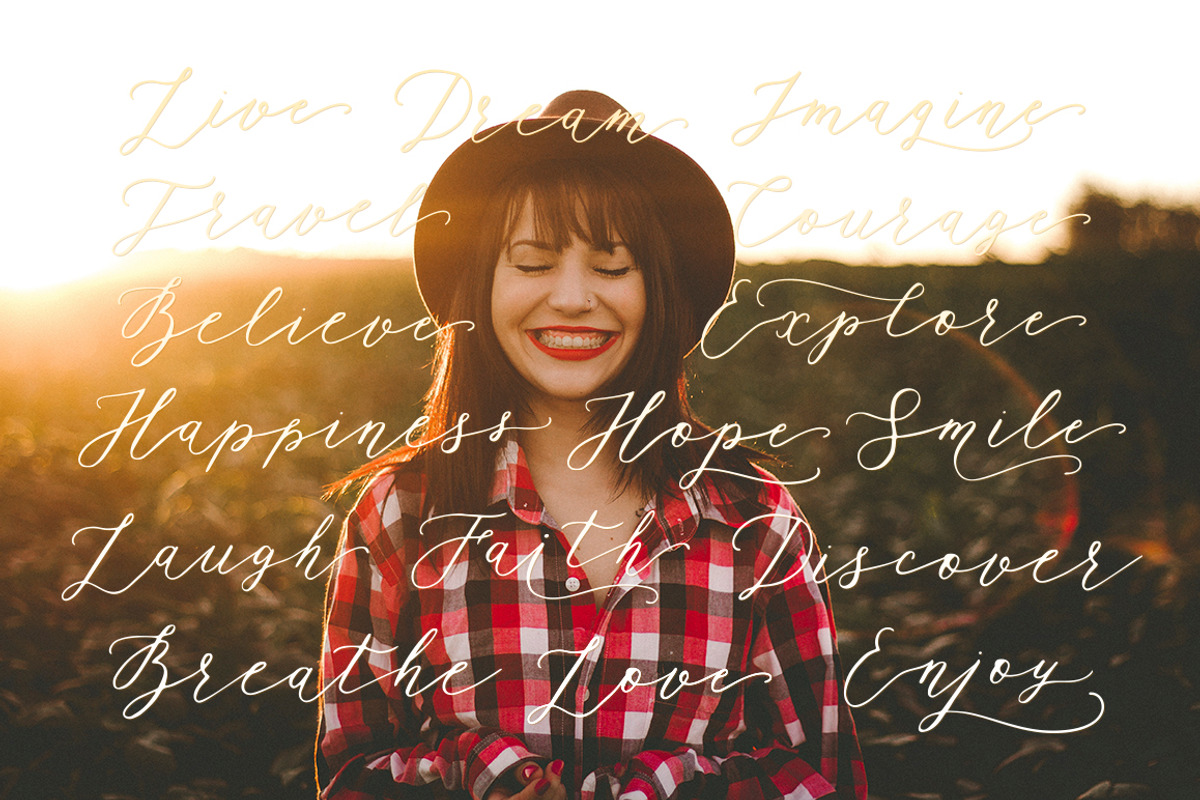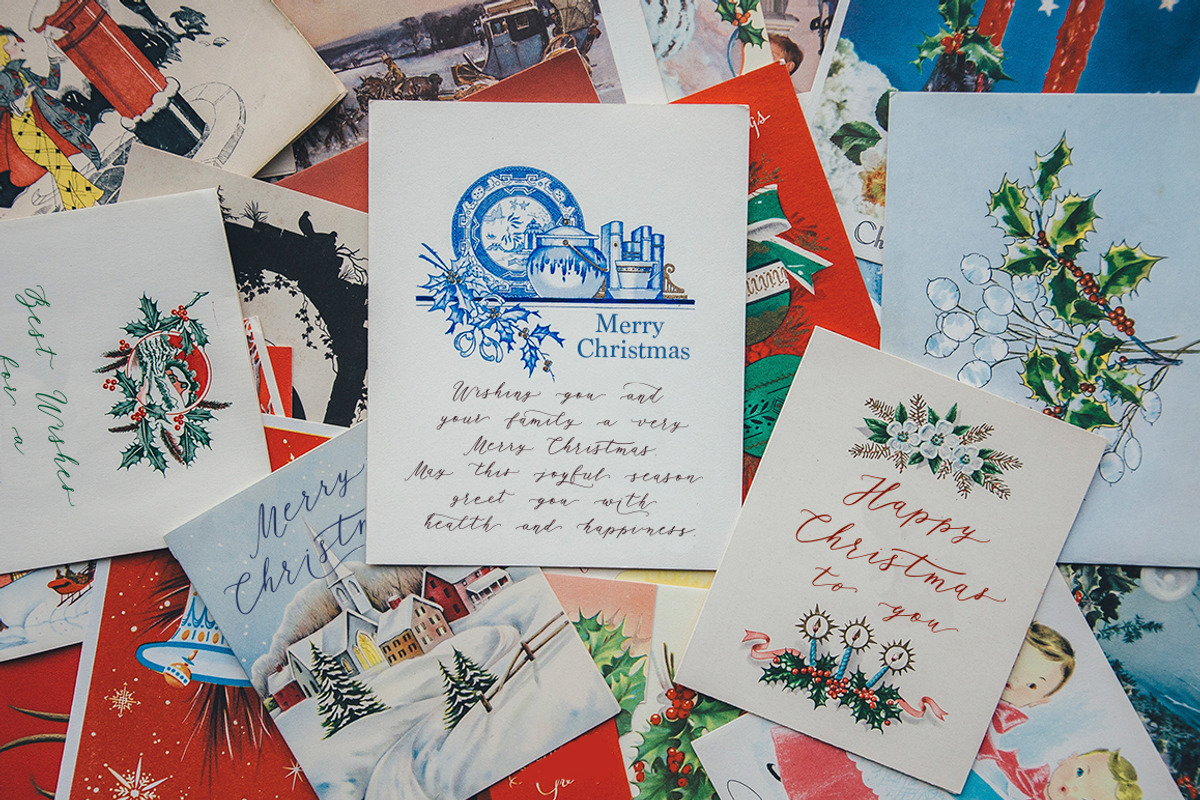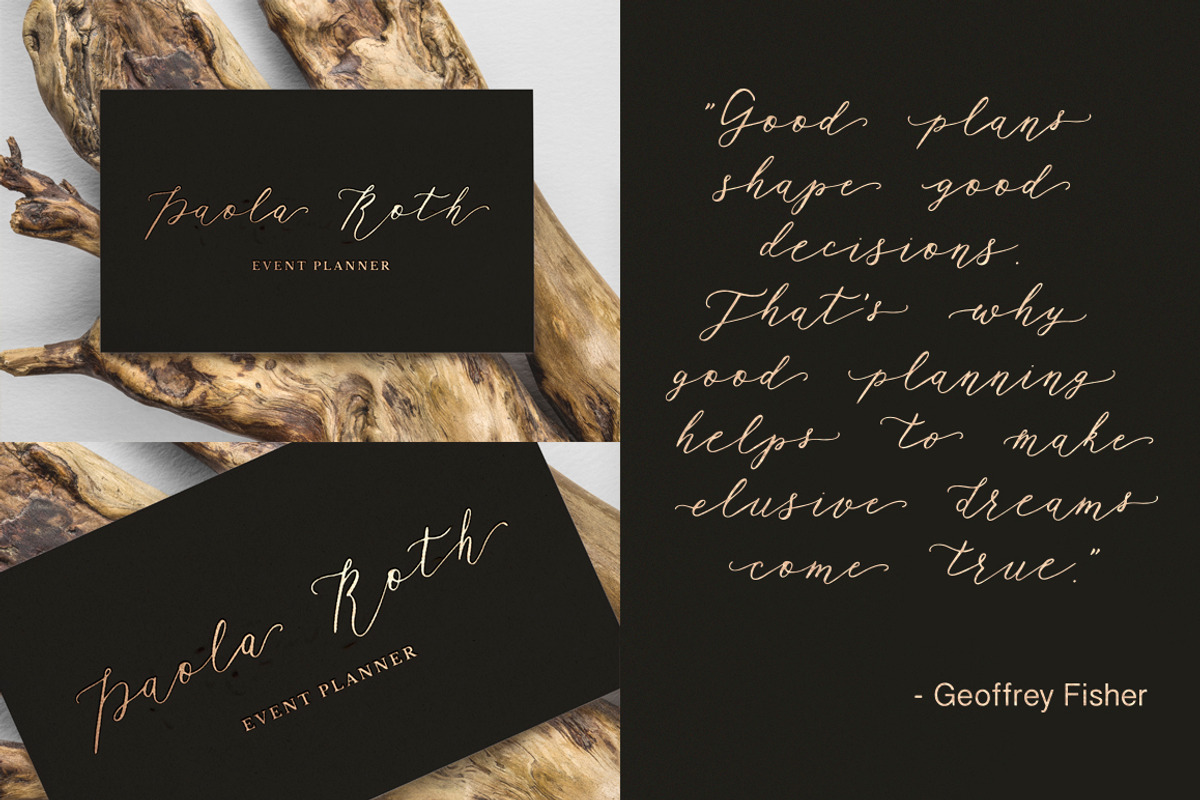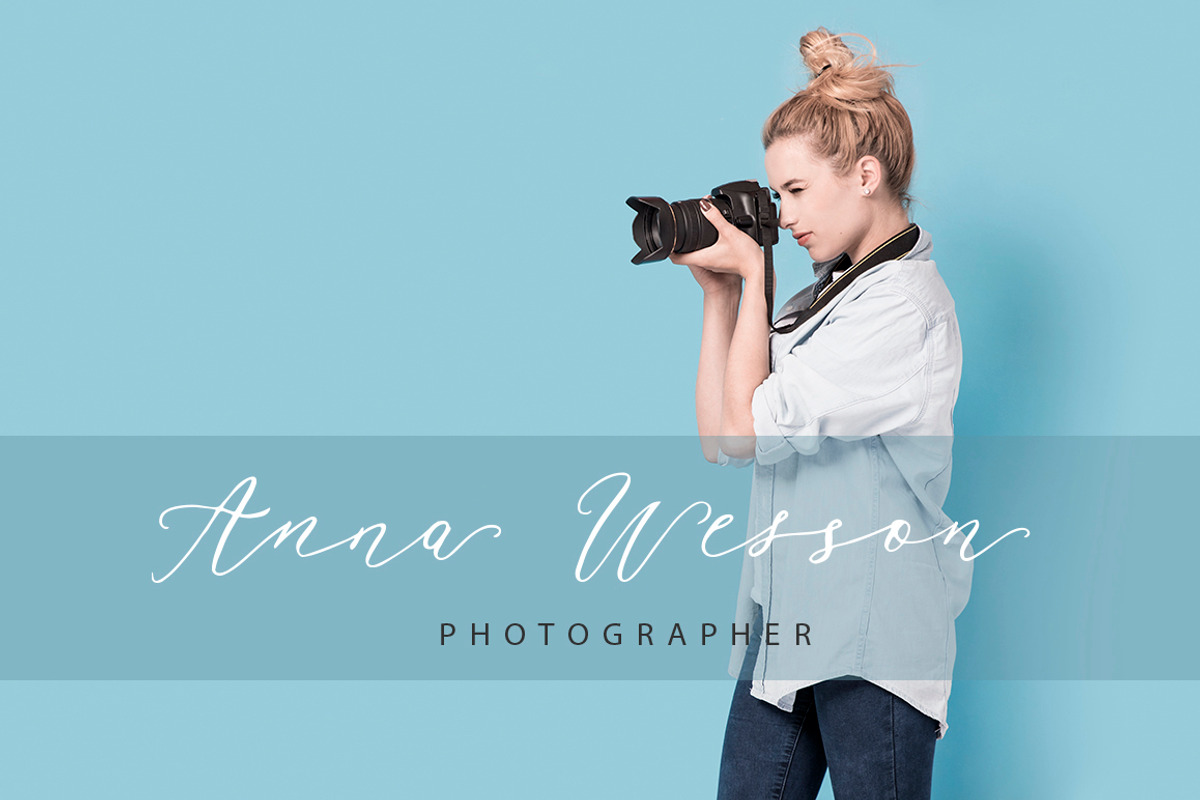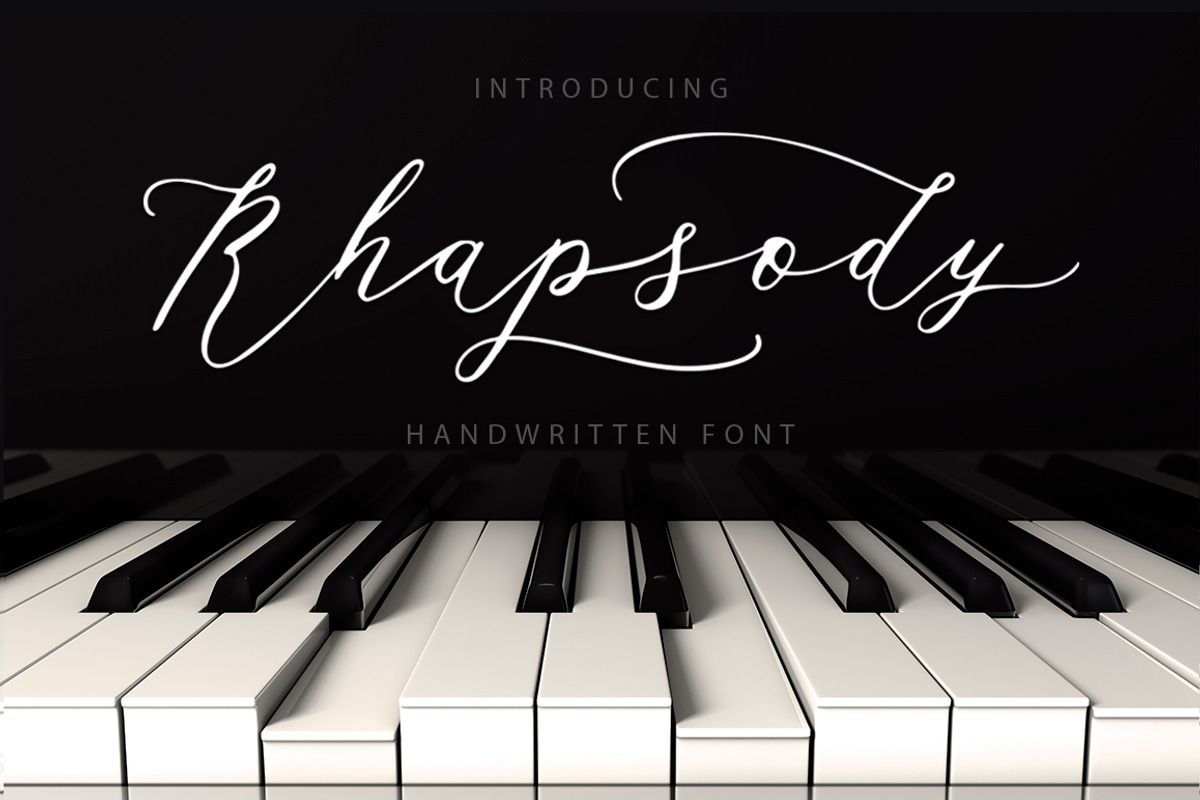
Rhapsody Font.
Rhapsody is a beautiful script handwritten font with an unique bouncy character. It allows your text messages to have their own unique gentle sounding. Thin handwritten glyphs and various open type features make Rhapsody font perfect for branding projects, your logo designs, handwritten quotes and gentle romantic messages.
Open type features include set of stylish alternate lowercase letters, a lot of ligatures initial and final glyphs for all lowercase glyphs.